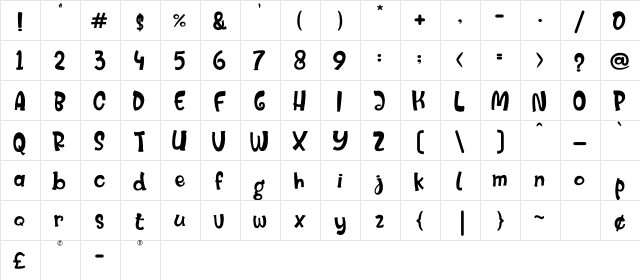
Mister Froggie Regular Regular
Design Context for Mister Froggie Regular Typeface
Mister Froggie Regular is a composed and adaptable typeface that performs quietly and consistently across a wide range of design contexts.